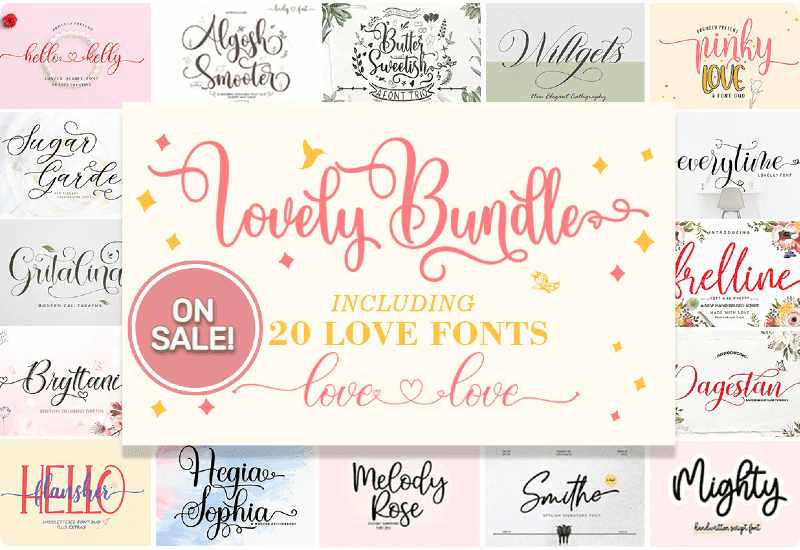
Fonts play a crucial role in design, and finding the perfect script fonts can elevate any creative project. Whether you’re working on a logo, wedding invitations, pantry labels, greeting cards, posters, or websites, having a diverse collection of high-quality fonts at your disposal is essential. This is where the Lovely Font Bundle comes in.
The Lovely Font Bundle is a collection of 20 exquisite script fonts by softcreative50 that will add a special touch to your designs. With this bundle, you can unlock a world of creativity and bring your ideas to life.
- Pinky Love Font Duo Script & Handwritten Font
- Melody Rose Duo Script & Handwritten Font
- The Beauty Blink Script & Handwritten Font
- Willgets Script & Handwritten Font
- Western Duo Script & Handwritten Font
- Smithe Signature Script & Handwritten Font
- Mighty Script & Handwritten Font
- Hello Kelly Script & Handwritten Font
- Amelia Script Script & Handwritten Font
- Hegia Sophia Script & Handwritten Font
- Sugar Garden Script & Handwritten Font
- Algosh Smooter Script & Handwritten Font
- Bryttani Script & Handwritten Font
- Hello Flansher Skript-Schriftarten Schriftart
- Butter Sweetish Font Corsivi Font
- Gritalina Script & Handwritten Font
- Dagestan Script Script & Handwritten Font
- Silfer Queen Script & Handwritten Font
- Everytime Script & Handwritten Font
- Frelline Script & Handwritten Font
- Enhancing creativity and design projects: The fonts in this bundle have been carefully crafted to inspire creativity. Each font possesses unique characteristics, allowing you to experiment and create stunning designs that stand out from the crowd.
- Versatility for various applications: The Lovely Font Bundle offers a wide range of script fonts suitable for different design purposes. Whether you’re designing a vintage-style logo or elegant wedding invitations, you’ll find fonts that perfectly match your vision.
- Access to special characters with PUA encoding: Many of the fonts in the Lovely Font Bundle are PUA encoded. This means you can easily access and utilize a variety of special characters, glyphs, and swashes to add flair and elegance to your typography.
With such a diverse range of fonts available, the Lovely Font Bundle opens up countless possibilities for your creative projects.
Potential uses of the Lovely Font Bundle
The Lovely Font Bundle offers endless possibilities for designers, creatives, and enthusiasts alike. Here are just a few of the many ways you can utilize these fonts:
- Logo design and branding: Create memorable and distinctive logos that leave a lasting impression. The unique styles and versatility of the Lovely Font Bundle fonts will help you achieve branding that stands out from the competition.
- Wedding invitations and stationery: Add elegance and sophistication to wedding invitations, RSVP cards, and other stationery items. The Lovely Font Bundle’s script fonts are perfect for capturing the romantic spirit of special occasions.
- Labeling and packaging designs: Give your products a professional and polished look with custom labels and packaging designs. The Lovely Font Bundle fonts offer a wide range of styles to suit different industries and aesthetics.
- Greeting cards and posters: Design eye-catching greeting cards and posters that convey warmth, emotion, and creativity. The Lovely Font Bundle’s diverse collection of fonts allows you to tailor your designs to different themes and messages.
- Web design and digital media: Enhance your websites, social media graphics, and digital content with the Lovely Font Bundle. From elegant headings to engaging call-to-action buttons, these fonts will make your online presence visually captivating.